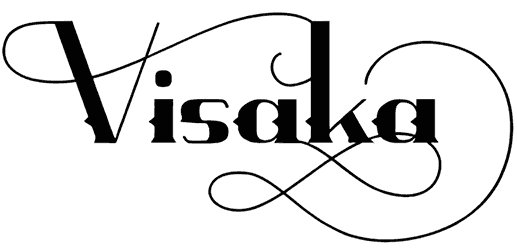
Visaka Font
Are you in search of a free font with a legendary style to execute your mythical designs? So Visaka can attract your attention with its elongated and creative design of letters.
This font, which is a combination of serif and script fonts, can give a classic sense of modernity to your writing. You can use this royal font to design posters, clothes, albums, and book covers, but you should know that it does not include numbers.